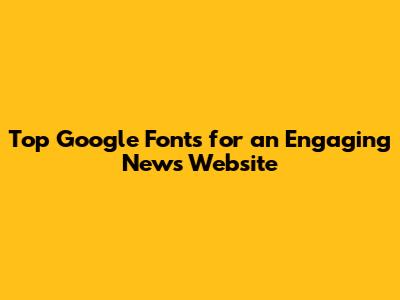
Top Google Fonts For An Engaging News Website
Choosing the right fonts for your news website is super important, guys! It’s not just about making things look pretty; it’s about making sure your readers can actually, you know, read your content without straining their eyes. The perfect font can seriously boost engagement, keep people on your page longer, and even build trust with your audience. So, let's dive into some of the best Google Fonts that can help your news website shine.
Why Font Choice Matters for News Websites
Font choice is a cornerstone of user experience on any website, but particularly critical for news platforms. Think about it: news sites are text-heavy. People come to them to read articles, reports, and updates. If the text is hard to read, cluttered, or visually unappealing, readers are likely to bounce. A well-chosen font, on the other hand, can significantly improve readability, making the content more accessible and enjoyable. This leads to increased engagement, lower bounce rates, and a perception of professionalism and credibility.
Readability is king, or queen! When selecting a font, prioritize clarity and legibility. A font might look stylish and unique, but if it's difficult to decipher at a glance, it’s not a good fit for a news website. Consider factors like the font's x-height (the height of lowercase letters), the spacing between letters and words, and the overall visual weight. Fonts with a larger x-height and adequate spacing tend to be easier to read, especially in longer articles. Moreover, ensure that the font renders well across different devices and screen sizes. A font that looks great on a desktop might become a blurry mess on a mobile phone, which is a no-go in today's mobile-first world.
Beyond readability, fonts also play a crucial role in establishing your website's brand identity. The fonts you choose should align with the overall tone and style of your news organization. Are you going for a serious, authoritative vibe? Or something more modern and approachable? A classic serif font like Times New Roman or Georgia can convey a sense of tradition and trustworthiness, while a clean sans-serif font like Arial or Helvetica might project a more contemporary image. The key is to select fonts that reinforce your brand message and resonate with your target audience. Consistency is also key. Stick to a limited number of fonts (typically two or three) and use them consistently across your website to create a cohesive and professional look.
Finally, don't underestimate the emotional impact of fonts. Different fonts evoke different feelings and associations. A bold, condensed font might convey a sense of urgency and importance, while a lighter, more elegant font might create a feeling of sophistication and refinement. Consider the emotional tone you want to set for your readers and choose fonts that align with that feeling. For example, a news website focused on investigative journalism might opt for a serious, no-nonsense font, while a lifestyle news site might choose something more playful and inviting. By carefully considering the emotional impact of your font choices, you can create a more engaging and immersive experience for your readers.
Top Google Fonts for News Websites
Alright, let's get into the nitty-gritty. Here are some of the best Google Fonts that work wonders for news websites. These fonts are chosen based on readability, versatility, and overall aesthetic appeal. Plus, they're all free to use, which is always a win!
1. Montserrat
Montserrat is a super popular sans-serif font that’s known for its clean and modern look. It’s incredibly versatile and works well for both headlines and body text. Its geometric design gives it a contemporary feel, making it perfect for news websites that want to project a sense of innovation and forward-thinking.
The beauty of Montserrat lies in its simplicity and clarity. The font features a generous x-height, which enhances readability, especially in longer articles. The spacing between letters is well-balanced, preventing the text from appearing cluttered or cramped. This makes it easy for readers to scan headlines and paragraphs, allowing them to quickly grasp the key information. Moreover, Montserrat comes in a variety of weights, from light to bold, giving you plenty of options to create visual hierarchy and highlight important content. Use the bolder weights for headlines and subheadings to grab attention, and the lighter weights for body text to ensure a comfortable reading experience.
Montserrat's versatility extends beyond its readability. The font pairs well with a wide range of other fonts, both serif and sans-serif, making it easy to create a cohesive and visually appealing design. Consider pairing it with a classic serif font like Merriweather or Playfair Display for a touch of elegance and sophistication. Alternatively, you can combine it with another sans-serif font like Open Sans or Lato for a more modern and minimalist look. The key is to experiment and find combinations that reflect your brand's personality and style. Furthermore, Montserrat is highly legible across different devices and screen sizes, ensuring that your content looks great whether it's viewed on a desktop computer, a tablet, or a smartphone.
Another advantage of Montserrat is its widespread availability. As a Google Font, it's easily accessible and can be integrated into your website with just a few lines of code. This makes it a convenient and cost-effective option for news organizations of all sizes. Additionally, Montserrat is constantly being updated and improved by its designers, ensuring that it remains a relevant and reliable choice for years to come. Its popularity also means that it's well-supported by various design tools and platforms, making it easy to incorporate into your overall design workflow. Whether you're a seasoned designer or a beginner, Montserrat is a font that you can rely on to deliver a professional and visually appealing result.
2. Roboto
Roboto is another fantastic sans-serif option. Designed by Google, it’s the system font for Android, so it’s super readable on screens. It has a dual nature, with both geometric and friendly forms, making it adaptable to various news website styles.
Roboto's strength lies in its balance of functionality and aesthetics. The font is designed to be highly legible in a wide range of sizes and contexts, making it ideal for both headlines and body text. Its clean, unadorned lines ensure that the text remains clear and easy to read, even on smaller screens. At the same time, Roboto possesses a subtle warmth and personality that prevents it from feeling sterile or impersonal. This makes it a versatile choice for news websites that want to convey a sense of professionalism and trustworthiness without sacrificing approachability. Furthermore, Roboto is available in a variety of weights and styles, including regular, medium, bold, and italic, giving you plenty of options to create visual hierarchy and add emphasis to important content.
The design of Roboto incorporates elements of both geometric and humanist typography. The geometric forms give it a sense of structure and stability, while the humanist touches add a touch of warmth and personality. This combination makes Roboto a versatile choice that can be adapted to a wide range of design styles. It pairs well with both serif and sans-serif fonts, allowing you to create a cohesive and visually appealing design. Consider pairing it with a classic serif font like Lora or Arvo for a touch of elegance and tradition. Alternatively, you can combine it with another sans-serif font like Open Sans or Lato for a more modern and minimalist look. The key is to experiment and find combinations that reflect your brand's personality and style.
Another advantage of Roboto is its excellent performance on the web. As a Google Font, it's optimized for fast loading times and smooth rendering across different browsers and devices. This is particularly important for news websites, where speed and performance are critical for user engagement. Slow-loading fonts can significantly impact the user experience, leading to higher bounce rates and lower page views. Roboto helps to mitigate this risk by providing a fast and reliable font solution. Additionally, Roboto is constantly being updated and improved by its designers, ensuring that it remains a relevant and reliable choice for years to come. Its widespread use also means that it's well-supported by various design tools and platforms, making it easy to incorporate into your overall design workflow.
3. Open Sans
Open Sans is a classic for a reason. This sans-serif font is incredibly readable and neutral, making it perfect for body text. It’s designed with an upright stress, open forms, and a neutral-yet-friendly appearance, ensuring clarity across all platforms and sizes.
Open Sans is renowned for its exceptional readability and versatility, making it a go-to choice for news websites seeking a clean and professional aesthetic. Designed with an emphasis on clarity and legibility, this sans-serif font features open forms and a neutral-yet-friendly appearance that ensures readability across a wide range of devices and screen sizes. Its upright stress and balanced proportions contribute to a comfortable reading experience, even for extended periods. Whether you're crafting lengthy articles, concise news briefs, or informative captions, Open Sans consistently delivers exceptional clarity and visual appeal. Its adaptability makes it an ideal choice for both headlines and body text, providing a cohesive and harmonious typographic foundation for your news website.
The beauty of Open Sans lies in its simplicity and understated elegance. The font's clean lines and unadorned forms create a sense of sophistication and professionalism, while its subtle curves and open counters add a touch of warmth and personality. This combination makes Open Sans a versatile choice that can be adapted to a wide range of design styles and brand identities. It pairs seamlessly with both serif and sans-serif fonts, allowing you to create a visually compelling and harmonious typographic landscape. Consider pairing it with a classic serif font like Merriweather or Playfair Display for a touch of tradition and refinement. Alternatively, you can combine it with another sans-serif font like Roboto or Lato for a more modern and minimalist look. The key is to experiment and find combinations that reflect your brand's unique personality and style.
Another significant advantage of Open Sans is its exceptional performance on the web. As a Google Font, it's optimized for fast loading times and smooth rendering across different browsers and devices. This is particularly crucial for news websites, where speed and performance are paramount for user engagement and satisfaction. Slow-loading fonts can significantly impact the user experience, leading to higher bounce rates and lower page views. Open Sans helps to mitigate this risk by providing a lightweight and efficient font solution. Furthermore, Open Sans is constantly being updated and improved by its designers, ensuring that it remains a relevant and reliable choice for years to come. Its widespread adoption also means that it's well-supported by various design tools and platforms, making it easy to integrate into your overall design workflow.
4. Lora
If you're after a serif font that’s easy on the eyes, Lora is a great pick. It’s well-balanced and has contemporary roots, making it perfect for news websites that want to combine readability with a touch of elegance. The brushed curves give it a more contemporary feel than some other serif options.
Lora stands out as an elegant and highly readable serif font, making it an excellent choice for news websites aiming to blend sophistication with clarity. Its well-balanced design and contemporary roots provide a versatile typographic solution that can enhance the visual appeal and readability of your content. The brushed curves of Lora give it a more modern and approachable feel compared to some other traditional serif fonts, making it a perfect fit for news organizations that want to project a sense of both authority and accessibility. Whether you're crafting headlines, body text, or captions, Lora consistently delivers a refined and engaging reading experience.
The unique charm of Lora lies in its ability to strike a balance between classic and contemporary aesthetics. The font's serif details add a touch of elegance and sophistication, while its clean lines and open forms ensure readability and clarity. This combination makes Lora a versatile choice that can be adapted to a wide range of design styles and brand identities. It pairs seamlessly with both serif and sans-serif fonts, allowing you to create a visually compelling and harmonious typographic landscape. Consider pairing it with a sans-serif font like Open Sans or Roboto for a modern and balanced look. Alternatively, you can combine it with another serif font like Merriweather or Playfair Display for a more traditional and refined aesthetic. The key is to experiment and find combinations that reflect your brand's unique personality and style.
Another significant advantage of Lora is its excellent performance on the web. As a Google Font, it's optimized for fast loading times and smooth rendering across different browsers and devices. This is particularly crucial for news websites, where speed and performance are paramount for user engagement and satisfaction. Slow-loading fonts can significantly impact the user experience, leading to higher bounce rates and lower page views. Lora helps to mitigate this risk by providing a lightweight and efficient font solution. Furthermore, Lora is constantly being updated and improved by its designers, ensuring that it remains a relevant and reliable choice for years to come. Its widespread adoption also means that it's well-supported by various design tools and platforms, making it easy to integrate into your overall design workflow.
5. Arvo
Arvo is a geometric slab-serif font that’s both readable and stylish. It’s a good option if you want something a bit different but still professional. Its robustness makes it particularly good for headlines.
Arvo distinguishes itself as a geometric slab-serif font, offering a unique blend of readability and style that makes it a compelling choice for news websites seeking a distinctive typographic identity. Its robust design and clear letterforms ensure excellent readability, while its geometric structure adds a touch of modernity and sophistication. Arvo is particularly well-suited for headlines, where its strong presence can effectively capture attention and convey a sense of authority. However, it can also be used for body text, providing a refreshing alternative to more conventional serif fonts. Whether you're crafting eye-catching titles, informative captions, or engaging articles, Arvo consistently delivers a visually appealing and readable experience.
The defining characteristic of Arvo is its combination of geometric precision and subtle warmth. The font's slab serifs and clean lines create a sense of structure and stability, while its slightly rounded corners and open counters add a touch of personality and approachability. This balance makes Arvo a versatile choice that can be adapted to a wide range of design styles and brand identities. It pairs seamlessly with both serif and sans-serif fonts, allowing you to create a visually compelling and harmonious typographic landscape. Consider pairing it with a sans-serif font like Open Sans or Roboto for a modern and balanced look. Alternatively, you can combine it with another serif font like Lora or Merriweather for a more traditional and refined aesthetic. The key is to experiment and find combinations that reflect your brand's unique personality and style.
Another significant advantage of Arvo is its excellent performance on the web. As a Google Font, it's optimized for fast loading times and smooth rendering across different browsers and devices. This is particularly crucial for news websites, where speed and performance are paramount for user engagement and satisfaction. Slow-loading fonts can significantly impact the user experience, leading to higher bounce rates and lower page views. Arvo helps to mitigate this risk by providing a lightweight and efficient font solution. Furthermore, Arvo is constantly being updated and improved by its designers, ensuring that it remains a relevant and reliable choice for years to come. Its widespread adoption also means that it's well-supported by various design tools and platforms, making it easy to integrate into your overall design workflow.
Tips for Choosing and Using Fonts
Okay, so you've got some font options. Now what? Here are some quick tips to help you make the most of your font choices:
• Readability First: Always prioritize readability. If people can’t easily read your content, they won’t stick around.
• Limit Font Families: Stick to two or three font families max. Too many fonts can make your site look cluttered and unprofessional.
• Consider Font Pairing: Use a tool like FontPair to find fonts that complement each other.
• Test on Different Devices: Make sure your fonts look good on desktops, tablets, and smartphones.
Choosing the right fonts for your news website is a big deal. By focusing on readability, brand identity, and user experience, you can create a site that not only looks great but also keeps your audience engaged. So go ahead, experiment with these Google Fonts, and find the perfect match for your news website. Happy designing, folks!